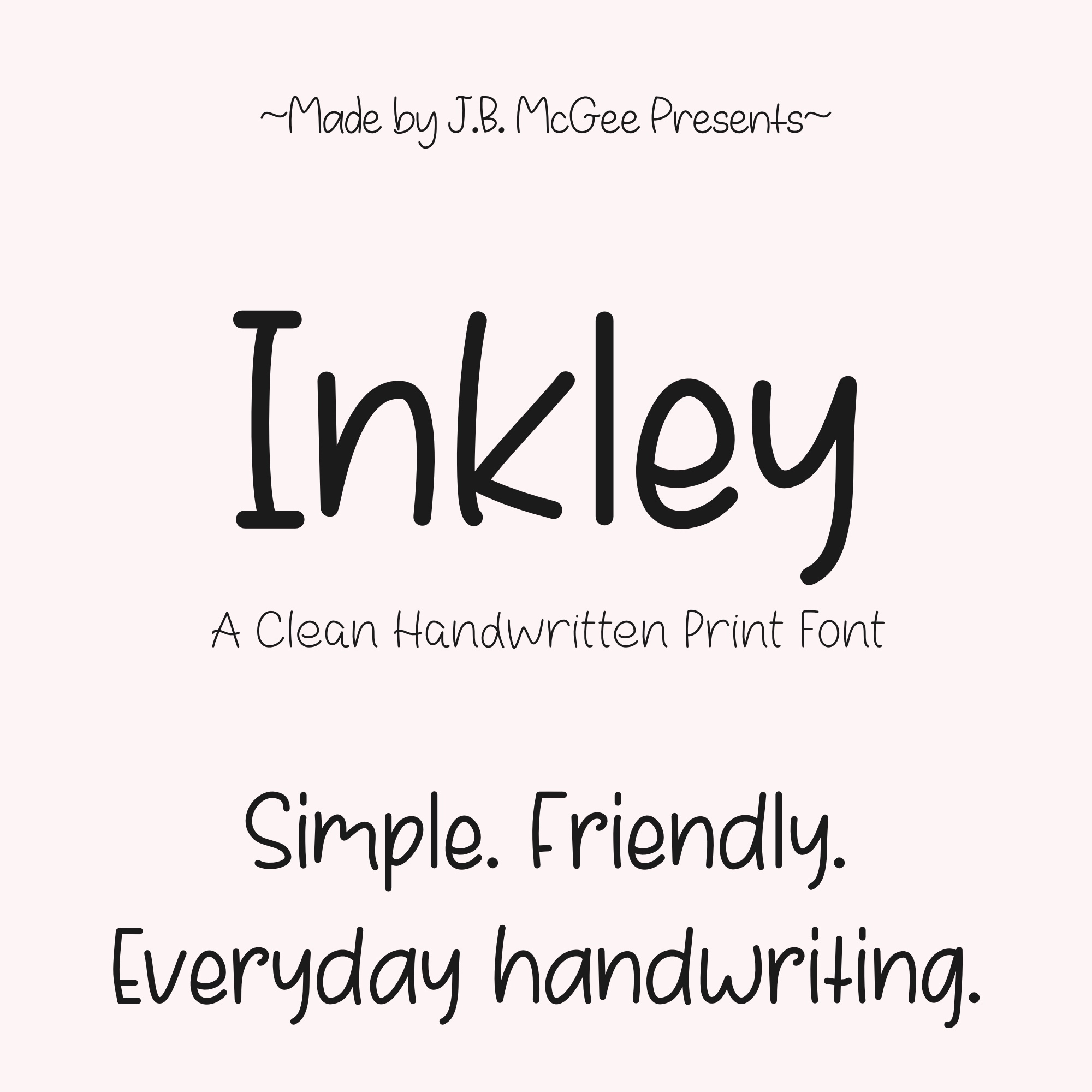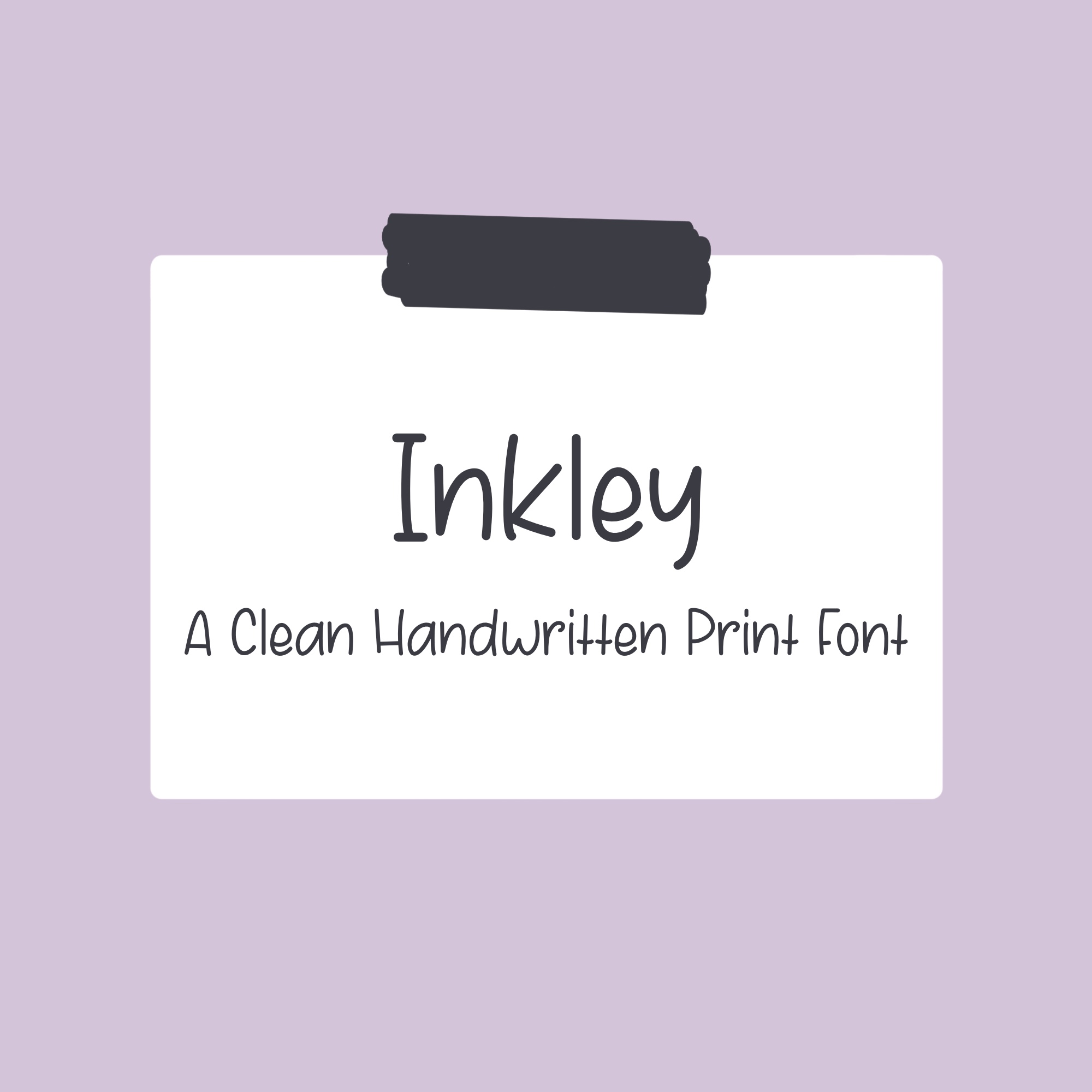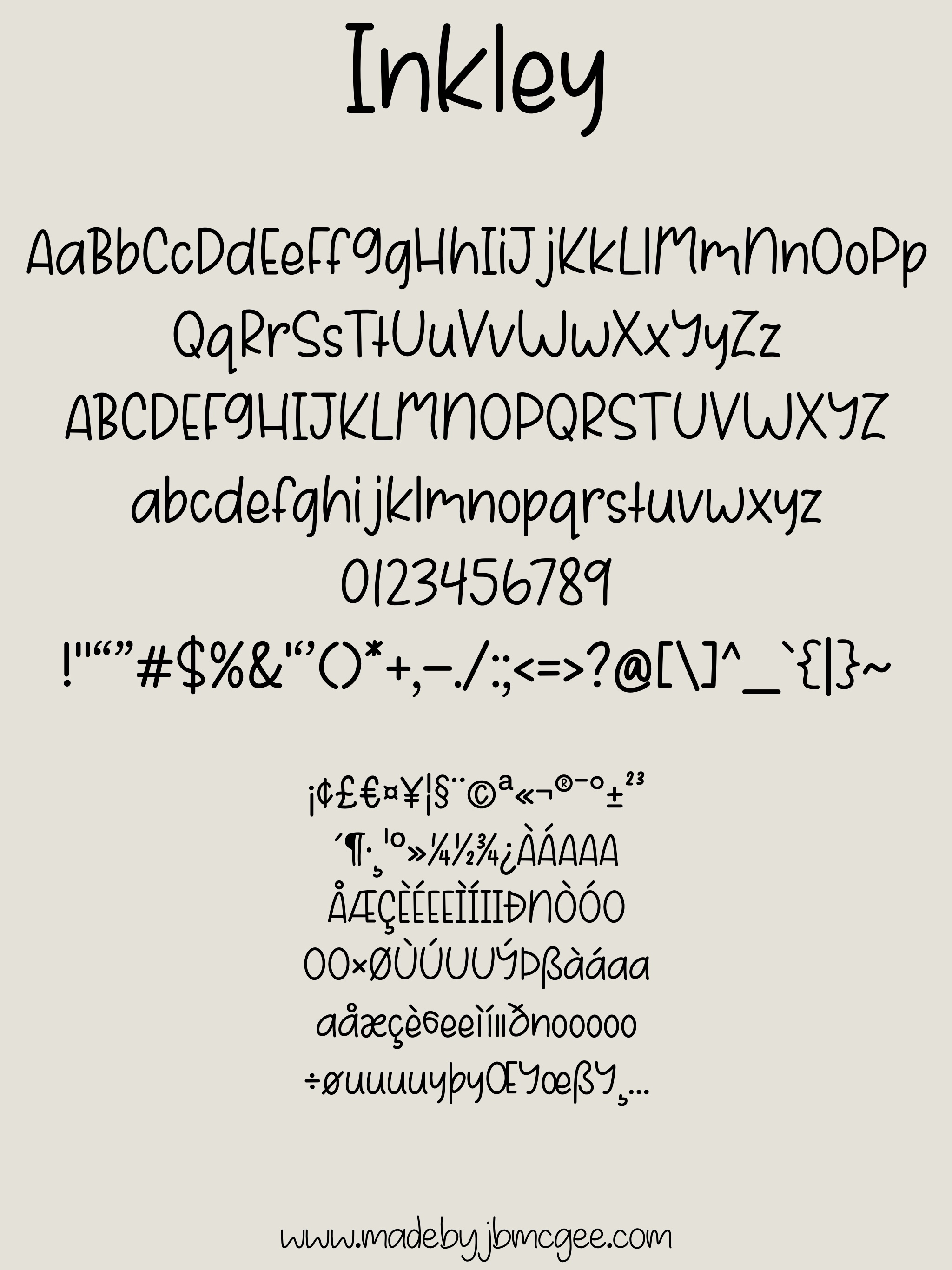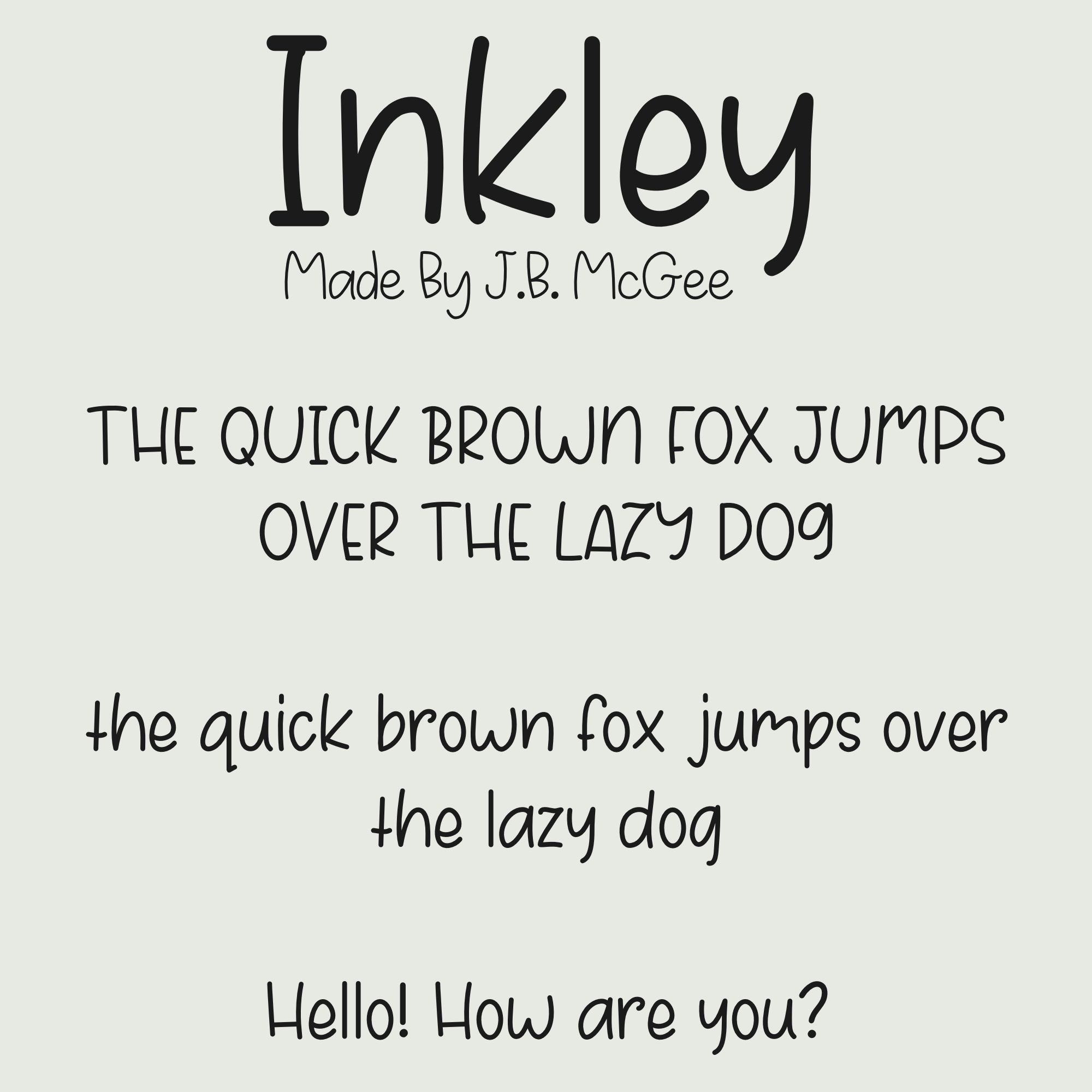
Inkley—A Clean Handwritten Print Font
Simple. Friendly. Everyday Handwriting.
Inkley is a clean handwritten print font designed to feel natural, simple, and easy to use. It captures the look of everyday handwriting while keeping letters neat, consistent, and highly readable.
This font was created with real-life use in mind, making it a reliable choice for both digital and print projects.
Perfect for:
Planners and journals
Worksheets and classroom materials
Stickers and small business products
Social media graphics
Branding and everyday design projects
Inkley keeps a friendly, approachable feel without sacrificing clarity, so your text stays easy to read at any size.